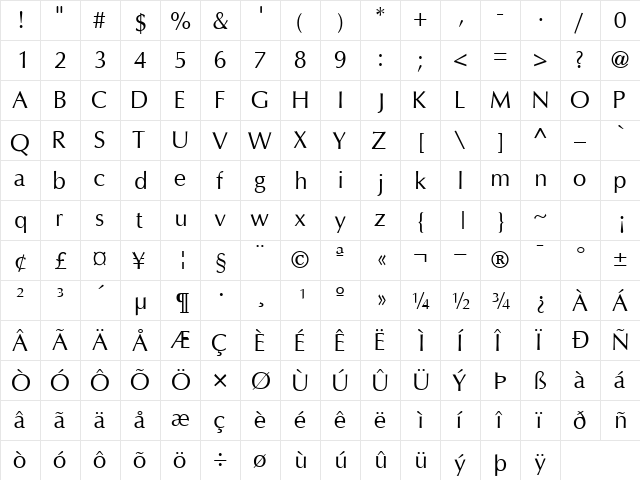
InterfaceSSK Regular
Design Context for InterfaceSSK Typeface
InterfaceSSK is a composed and adaptable typeface that performs quietly and consistently across a wide range of design contexts.